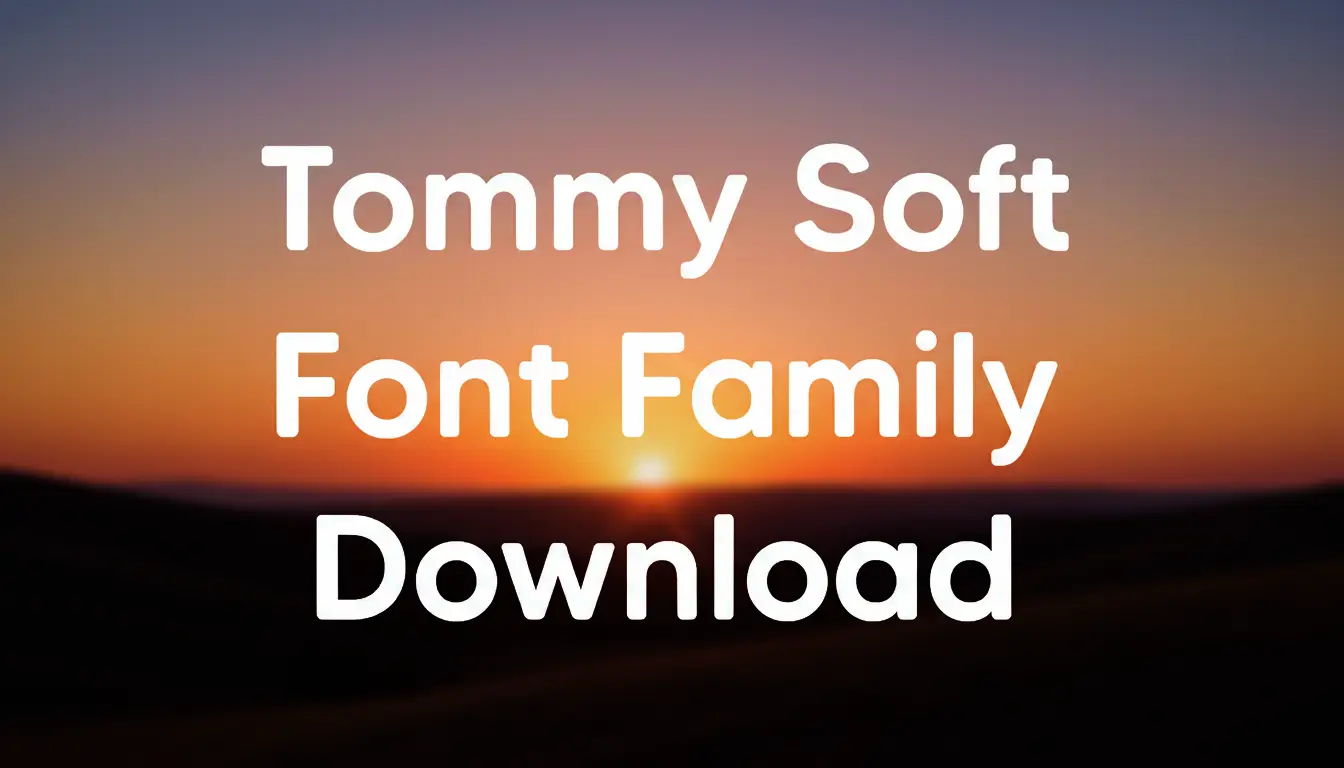
Tommy Soft Font
Tommy Soft is a sans serif font made by MadeType. Simple, open letter shapes keep it easy to read at almost any size, from app buttons to big headlines. You get six styles in one free ZIP, and the preview above lets you test each one before you download.
Tommy Soft Font Details
- Designer: MadeType
- Font styles: 6 (Regular, Light, Medium, Bold, ExtraBold and Black)
- Glyphs: 355 in the Regular style
What You Can Type With Tommy Soft
With complete upper and lowercase letters and all ten digits, Tommy Soft is ready for real wording, not just a single headline. Common punctuation such as &, !, ? and @ is included as well. It also has the accented letters you need for Spanish, French, German, Portuguese and Italian.
Where Tommy Soft Works Best
Tommy Soft is a natural fit for websites, app screens and clean logos. It works for headings and body text alike. If the download has several weights, use a heavier one for titles and a lighter one for paragraphs. Because the family has more than one style, you can mix them in a single design for headings, subheadings and highlights.
Does Tommy Soft support accented letters?
Yes. Tommy Soft includes the accented letters needed for Spanish, French, German, Portuguese and Italian, so it works for more than just English.